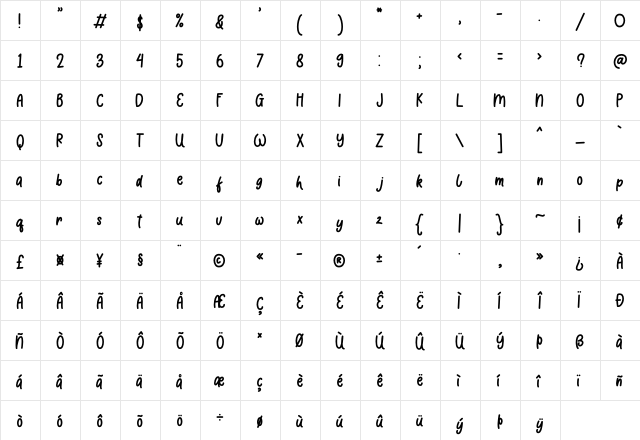
Comic Boys Regular
Design Context for Comic Boys Typeface
Comic Boys has an approachable, lighthearted character — its loose, expressive forms are well-suited to children's content, casual branding, and fun-first design.
Font Pairing: Pairs well with a rounded or humanist sans for body copy, maintaining the friendly tone without relying on Comic Boys to carry extended reading.
Pro Tip: Avoid using Comic Boys for long passages of text — it works best for headlines, labels, and short calls to action.